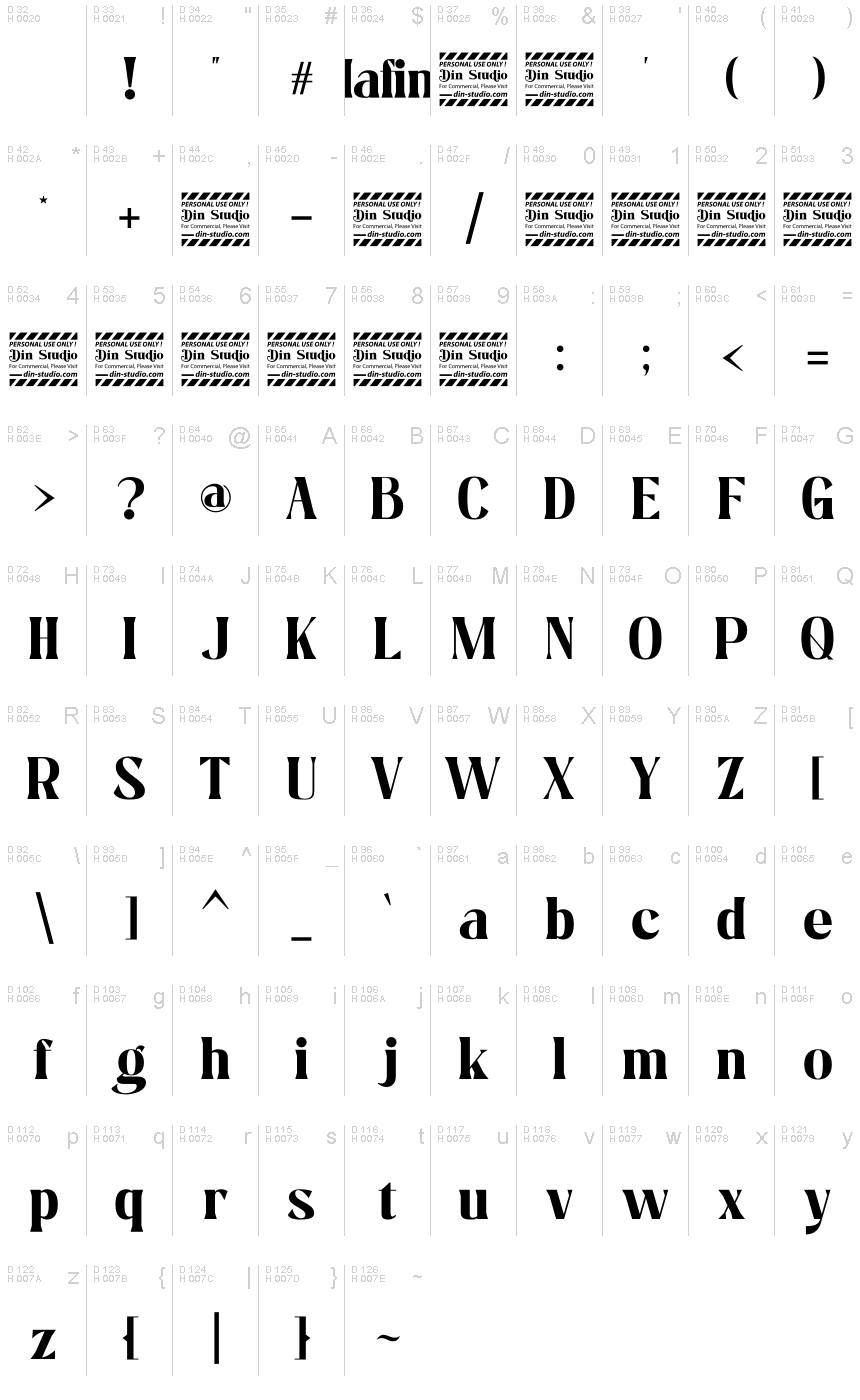
Mafins Personal Use
Mafins, a creation by Nathatype, elegantly bridges the gap between tradition and innovation in typography. This serif font exudes a classic charm with a contemporary twist, making it an excellent choice for those seeking to infuse their work with both timelessness and modern flair. Its letterforms display graceful curves and refined serifs that lend themselves to a wide range of applications.
The font's aesthetic appeal lies in its subtle blend of the old and the new, allowing it to shine in contexts that require sophistication without sacrificing approachability. Mafins is particularly well-suited for editorial work, branding, and upscale print materials where its distinct personality can truly make a statement. Whether it's an invitation to an exclusive event or the masthead of a boutique magazine, Mafins offers designers an attractive tool for crafting memorable visual compositions.
Mafins is Serif Font